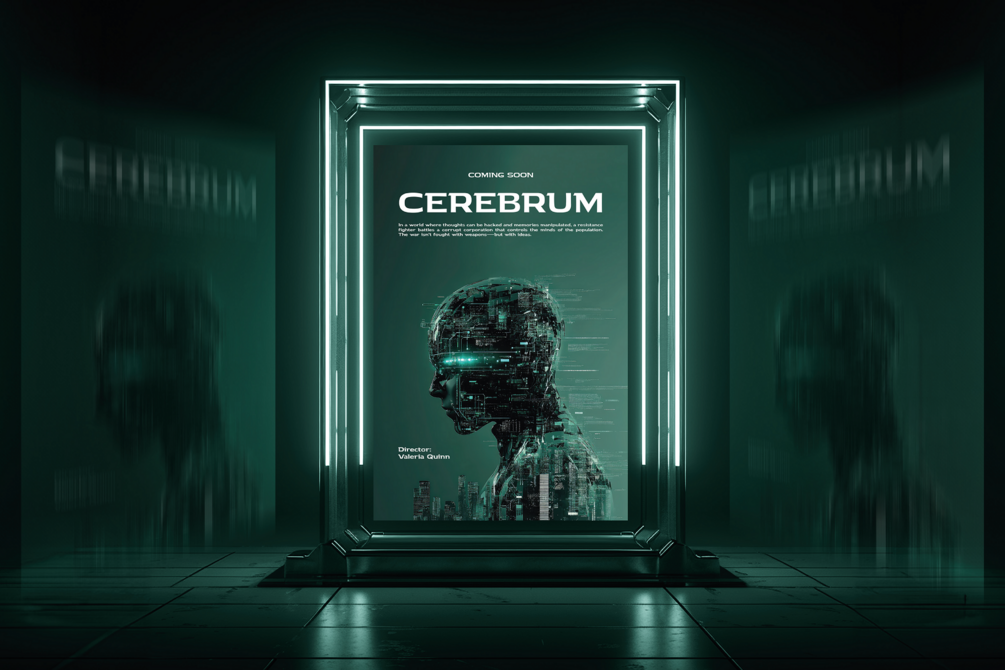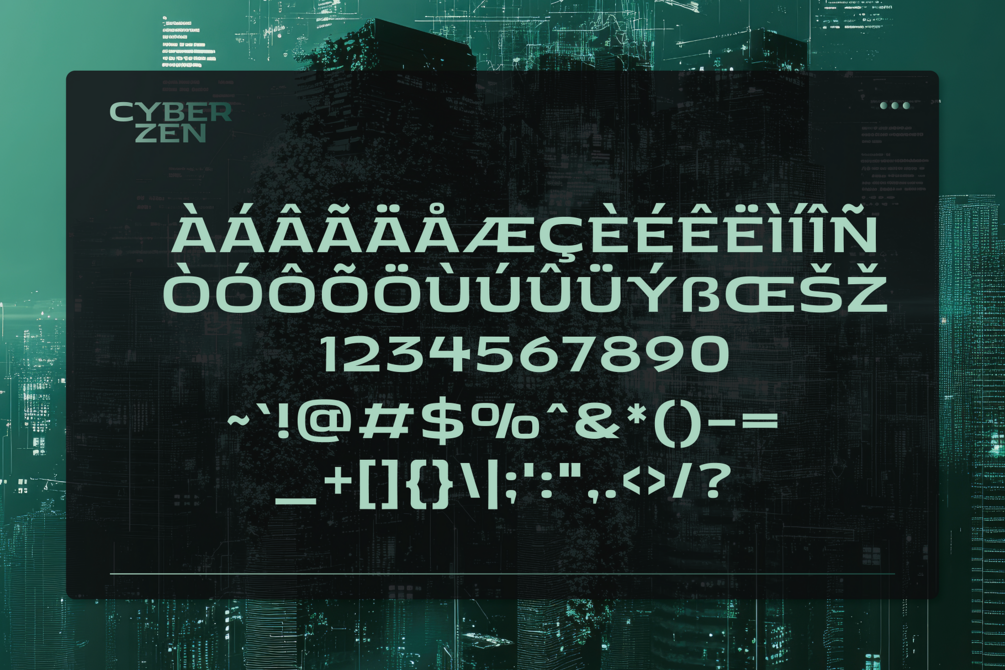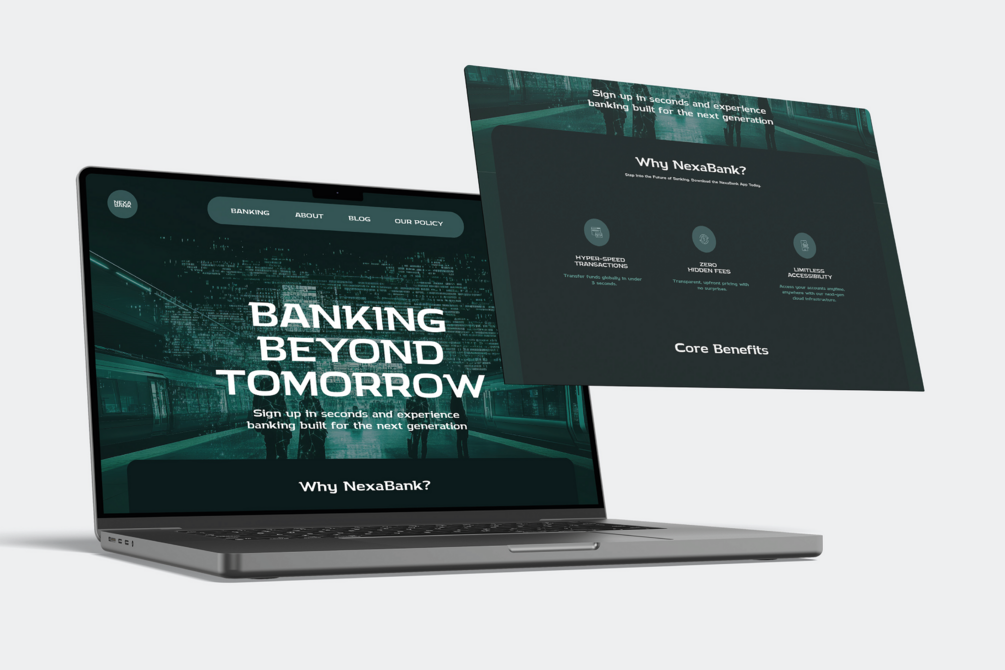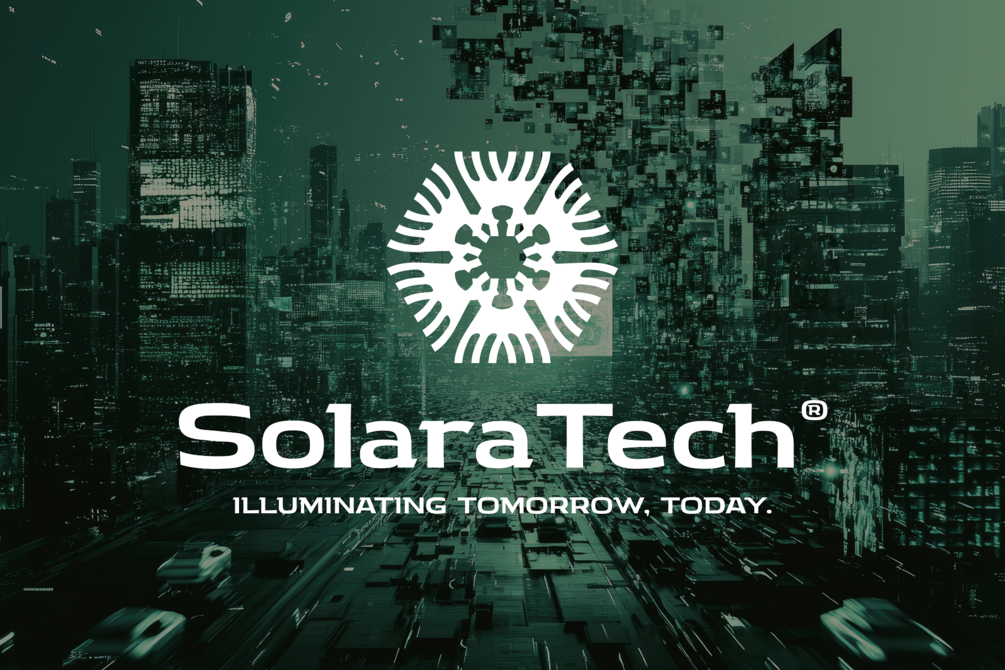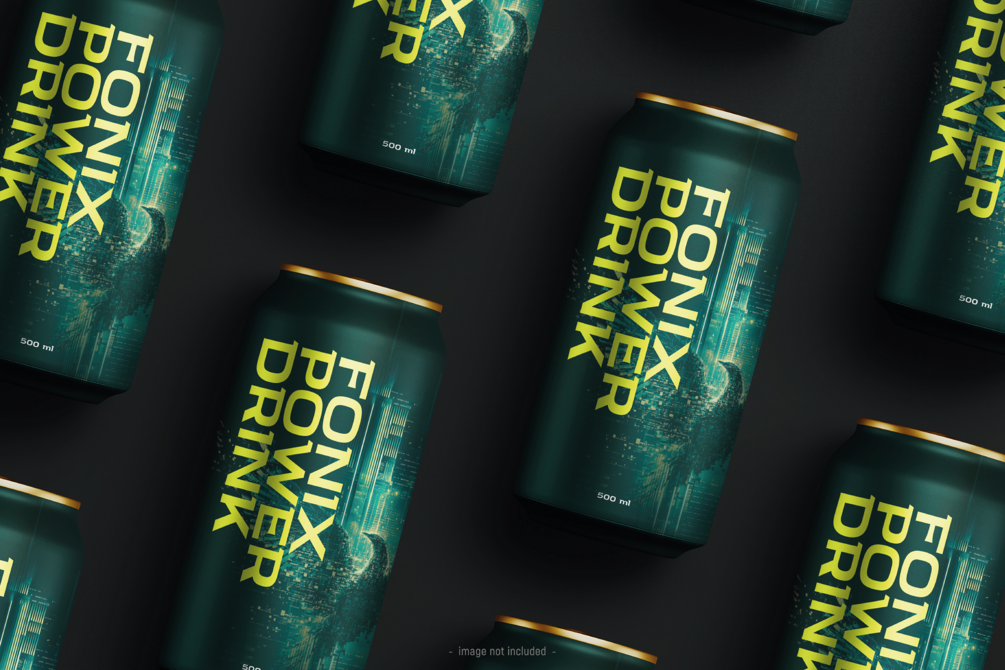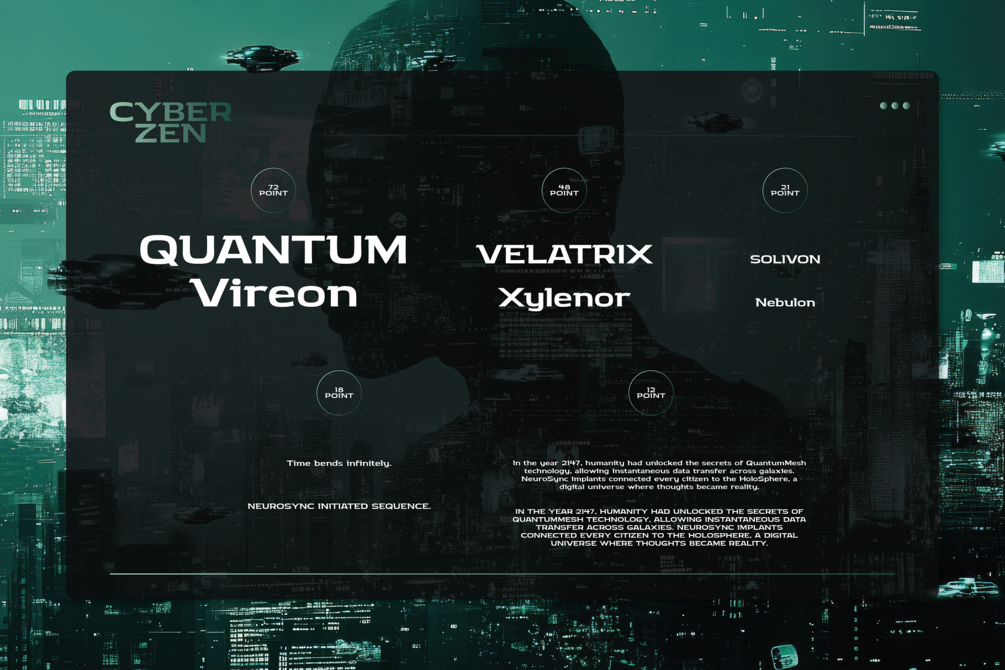
Cyber Zen - Futuristic Typeface
Introducing Cyber Zen, the ultimate futuristic typeface that embodies sleek minimalism and modern design.
Its clean lines and balanced proportions make it the perfect choice for forward-thinking branding, cutting-edge space projects, and visionary digital experiences.
Whether you're designing for tech, sci-fi, or modern minimalism, Cyber Zen delivers a striking yet understated aesthetic that exudes sophistication and innovation.
Elevate your designs into the future with a typeface that’s as sharp as it is serene—Cyber Zen is where modernity meets minimalism.